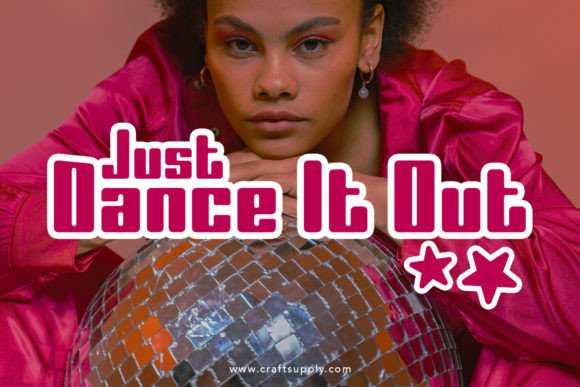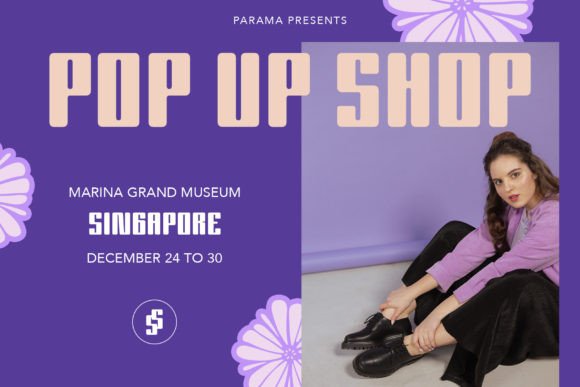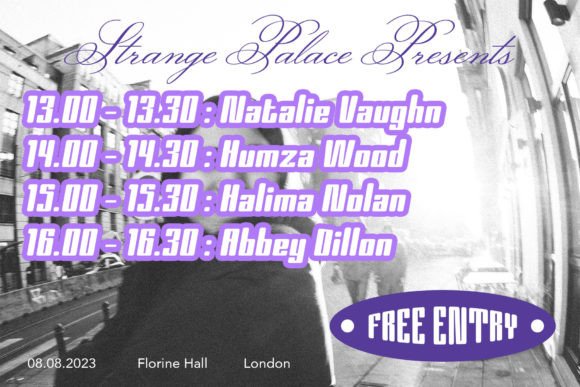
Introduction to Calpina Font
The moment you’re working on a creative project and you need that one font to elevate it to the next level. You scroll through your design resources, searching for the perfect match. And then, you stumble upon it – the Calpina Font. This modern display font is more than just a design element, it’s a game-changer.
With its retro touch and refined appearance, the Calpina Font is sure to grab attention and make your text stand out. Whether you’re working on a logo, advertisement, or headline, this high-quality font is a valuable addition to any designer’s toolkit. And the best part? It’s available for free download, making it a transparent and accessible design resource for creatives of all levels.
From its modern aesthetic to its versatility, the Calpina Font is an essential design element that’s sure to take your creative projects to new heights.
Key Features of Calpina Font
- Unique characteristics include its elegant and modern aesthetic, making it a popular choice for branding and advertising projects.
- Designed to be highly legible, with a clear and readable font style suitable for both on-screen and print use.
Honest Review: Calpina Font
I recently stumbled upon the Calpina Font while searching for a high-quality design resource for a creative project. The font is a free download, which was a major plus for me. Upon closer inspection, I was impressed by the font’s transparent background and smooth, elegant lines.
- What works well: ✨ The Calpina Font’s clean and minimalist design makes it perfect for a wide range of creative projects, from logos to typography-heavy compositions.
- ✨ The font’s high quality is evident in its crisp, well-defined strokes and characters.
However, I did encounter some limitations with the Calpina Font.
- ⚠️ The font’s character set is somewhat limited, which may not be suitable for projects that require a wide range of characters or languages.
- ⚠️ The font’s transparency can be a bit unpredictable in certain design situations, so be sure to test it thoroughly before use.
Overall, I’m impressed with the Calpina Font’s potential as a design resource. While it may have some limitations, its high quality and free download option make it a valuable addition to any designer’s toolkit.
The Calpina Font is a free download that offers a high-quality design resource perfect for any creative project. It features a transparent background, making it easy to layer and manipulate in your design.
Tips for Getting the Most Out of Calpina Font
Some tips for getting the most out of the Calpina Font include experimenting with different font sizes and styles, and combining it with other design elements to create a unique look.
The Calpina Font is commonly used in a variety of creative projects, including graphics, presentations, and documents. Its high-quality design and transparent background make it perfect for layering and manipulating in your design.
Is the Calpina Font suitable for large-scale designs?
Yes, the Calpina Font is a high-quality design resource, making it suitable for large-scale designs, such as billboards, posters, and even creative projects like branding and packaging. Its high-resolution design ensures that it will look great even when scaled up to large sizes.